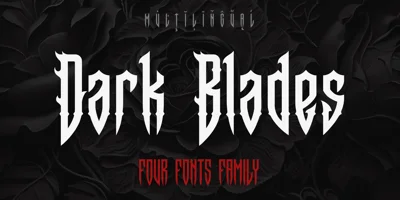
Dark Blades Font
Dark Blades Font is ideal for fantasy gaming interfaces, medieval sword combat games, dark fantasy novels, warrior guild branding, blacksmith workshop signage, medieval weapon exhibitions, role-playing game materials, and gothic adventure design projects.
What makes Dark Blades Font exciting is its menacing warrior spirit that embodies the sharp precision and deadly elegance of ancient weaponry through angular, blade-inspired letterforms. This formidable typeface features sharp geometric construction with sword-like details that evoke the dangerous beauty and masterful craftsmanship of medieval blades, making it perfect for projects requiring authentic warrior credibility and the representation of combat expertise in their fantasy communications.
The Dark Blades Font family includes regular and bold weights, plus weapon-inspired variations and medieval decorative elements that enhance the warrior aesthetic with sword styling options and combat-focused typography elements for fantasy applications.
This fierce typeface delivers exceptional warrior authenticity and medieval combat appeal, making Dark Blades Font an essential resource for fantasy gaming and medieval-themed design projects. The font's warrior character makes it perfect for organizations wanting to convey combat mastery and medieval heritage in their fantasy brand identity. Gaming companies and medieval reenactment groups particularly value its ability to communicate warrior strength and ancient weaponry expertise instantly to fantasy enthusiasts. The sharply designed letterforms ensure optimal readability while preserving the dangerous appeal of medieval combat across all applications from gaming interfaces to fantasy tournament materials. Whether you're creating materials for sword fighting academies or developing branding for fantasy role-playing experiences, this font provides the perfect combination of medieval authenticity and commercial fantasy appeal. Creative professionals consistently choose this typeface for projects requiring that ideal balance of warrior credibility and fantasy adventure excitement, making it invaluable for gaming communications that celebrate both historical martial arts and contemporary fantasy entertainment.